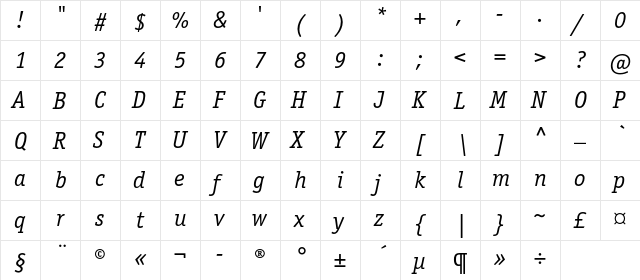
OfficinaSerifBookC Italic Font Preview
OfficinaSerifBookC Italic
OfficinaSerifBookC Italic Font Details
Design Context for OfficinaSerifBookC Typeface
OfficinaSerifBookC brings classic typographic sensibility to the table — its serifs and measured letterforms reflect centuries of print heritage. Its italic angle brings a sense of urgency and motion to the letterforms.